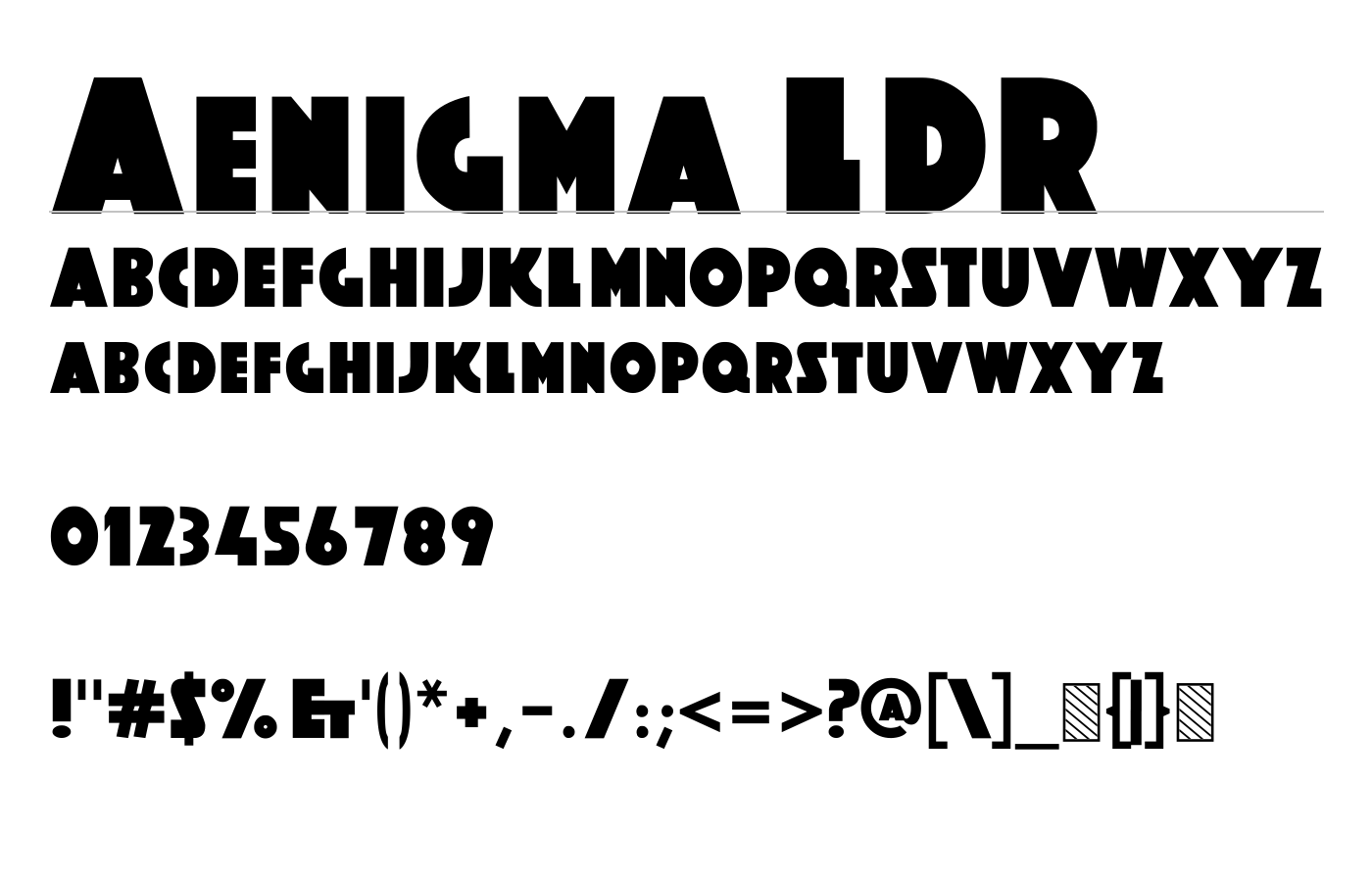
Aenigma LDR is a bold, condensed sans serif font with a strong, geometric presence marked by sharp angles and clean lines. Its high contrast and distinctive letter shapes create a striking, modern look that works well for headlines and branding where an impactful, confident style is desired. This font suits creative projects, posters, and logos aiming for a powerful and contemporary visual statement.
Aenigma LDR Font
About Aenigma LDR Font